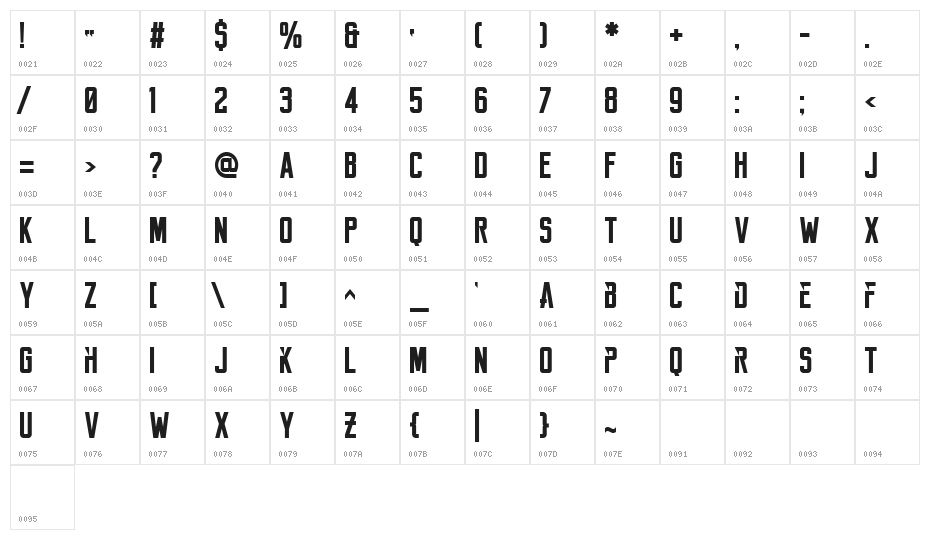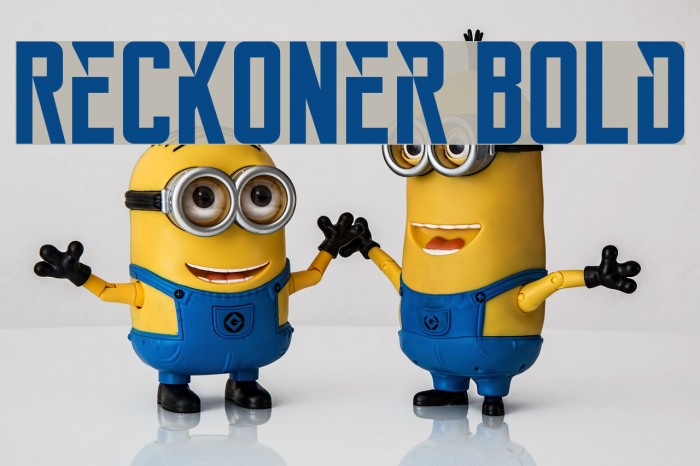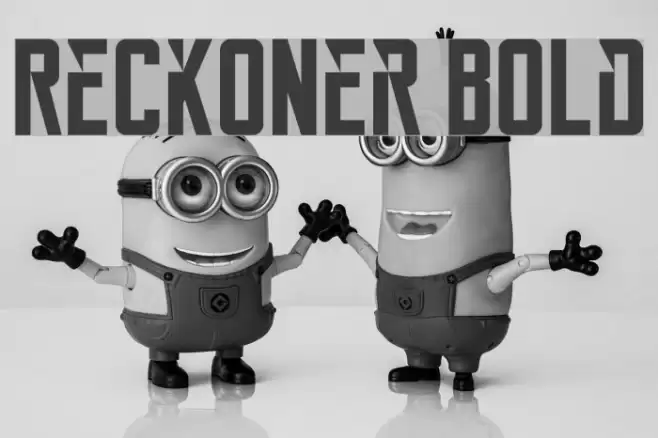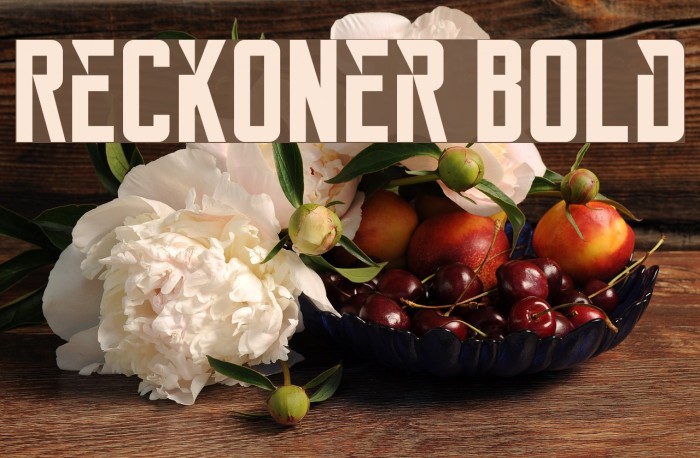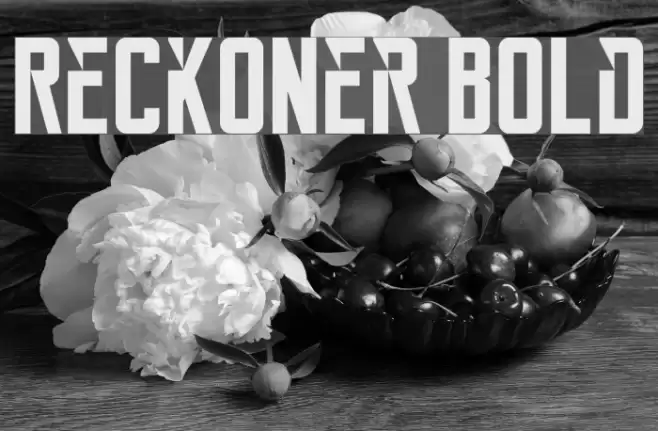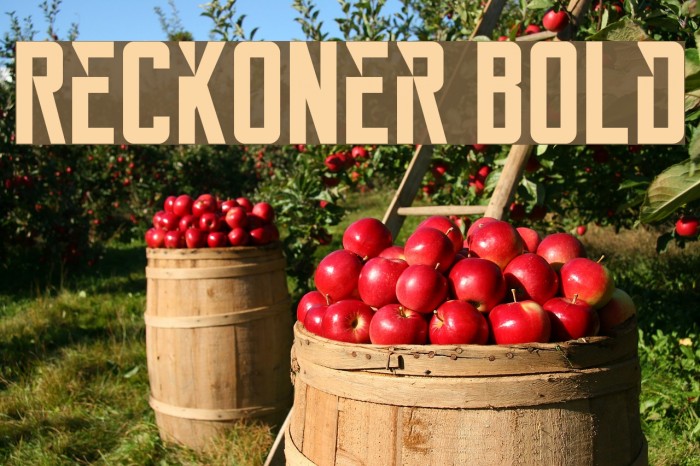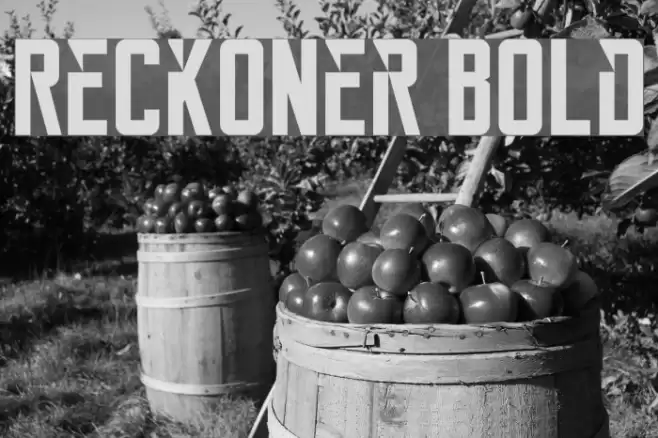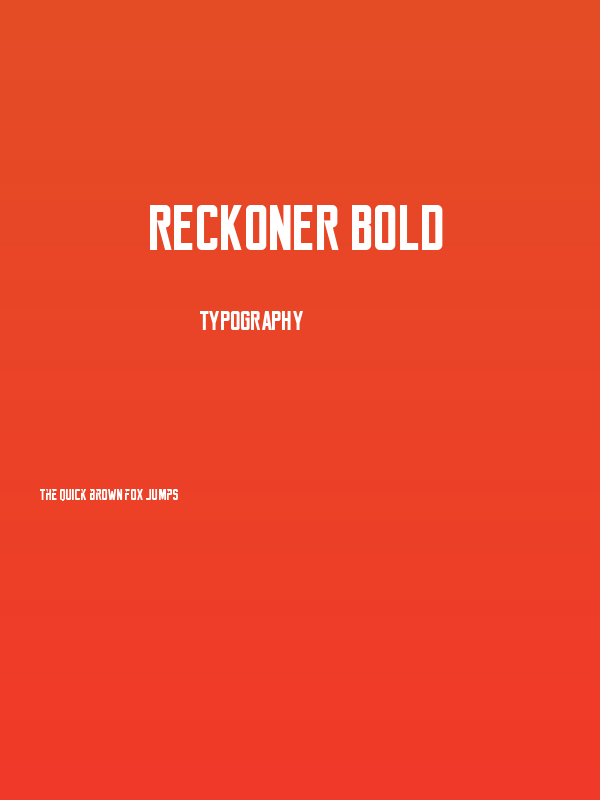
Reckoner Bold Font
Reckoner Bold Description
This font features a bold, geometric design with a strong presence. The uppercase letters are constructed with sharp angles and clean lines, giving it a modern and industrial feel. The characters are uniformly wide, contributing to a monospaced appearance, though they are not strictly monospaced. The numbers and special characters maintain the same bold and angular style, ensuring consistency across all glyphs. This font is ideal for projects that require a strong visual impact, such as headlines or branding materials.
| Proposed Projects | Ideal for headlines, branding, posters, and any design requiring a strong visual impact. |